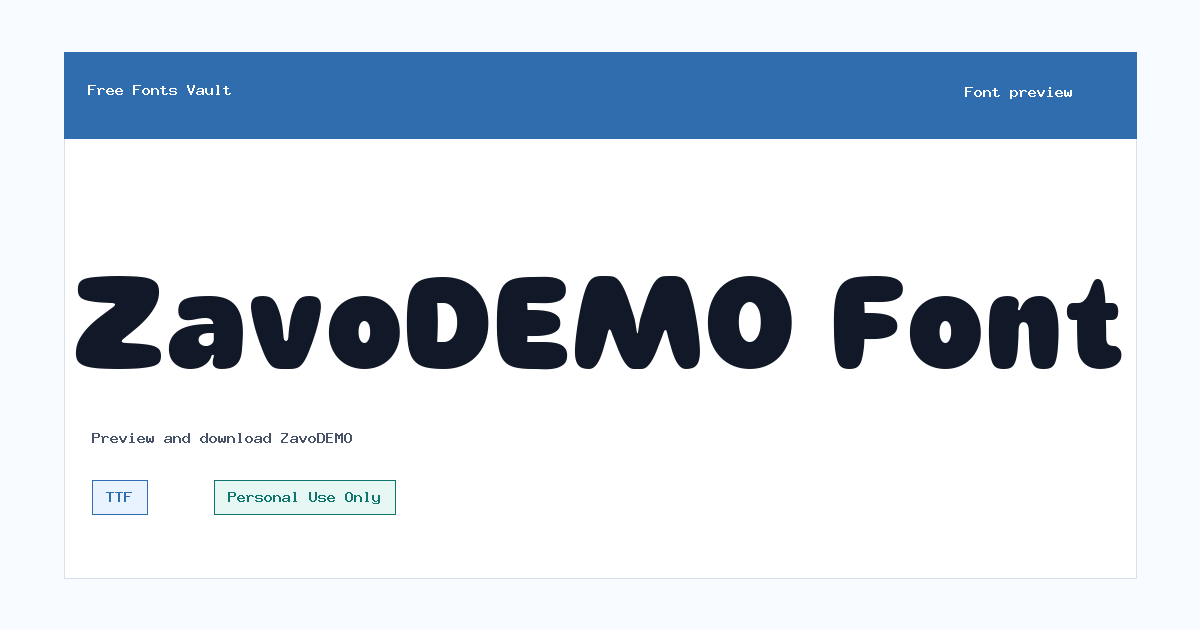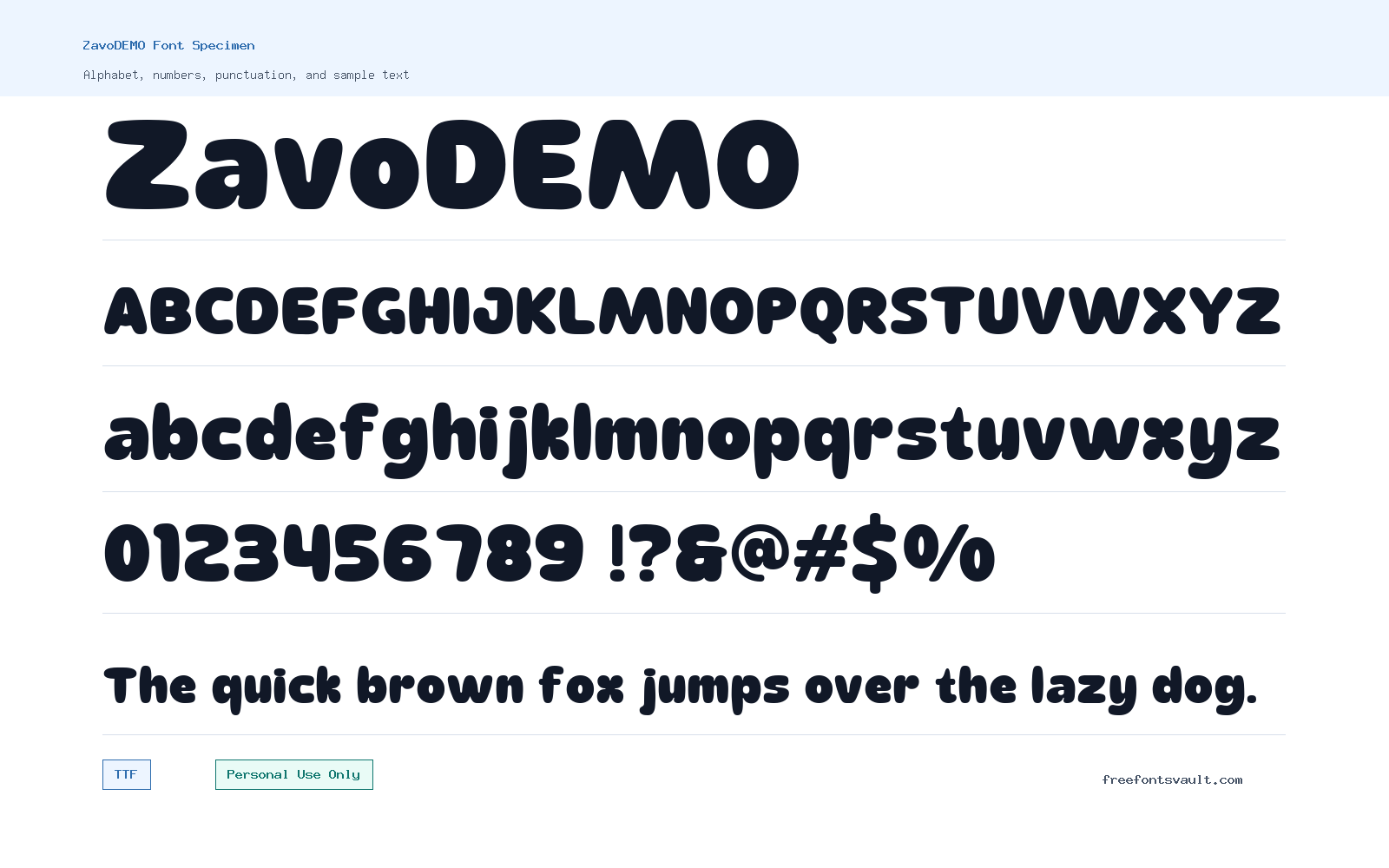
ZavoDEMO
- Designer Bakhrudin Ja'far
ZavoDEMO font.
ZavoDEMO is a personal-use demo font for visitors who want to test a simple sans serif style in headlines, titles, and short display text before deciding whether it fits a project.
About ZavoDEMO Font
ZavoDEMO is listed as a Zavo Sans Serif font with a regular TTF file. The download contains one normal-weight style, so it is best treated as a straightforward trial font rather than a full type family with multiple weights or italics. Because the file is marked as a demo and the license note says Personal Use Only, it works best for private layouts, mockups, school projects, personal graphics, and design tests where you do not need commercial rights.
Use the preview tool to check the parts that matter most for your design: uppercase titles, lowercase words, numbers, punctuation, and spacing between letters. A single regular style can look clean in short text, but it may need help in longer layouts because there are no bold, light, or italic styles listed for contrast. Try ZavoDEMO in a few real phrases instead of judging it from the name alone. If you are planning a poster, social graphic, logo draft, website hero, or presentation title, test the exact wording first and zoom out to see whether the words still feel balanced.
- Personal title designs, poster drafts, mood boards, presentation covers, and social media mockups.
- Short headings or display text where a single regular sans serif style is enough.
What is ZavoDEMO best used for?
It is most practical for personal design tests, short headings, poster concepts, title treatments, and mockups where a regular sans serif demo style is enough.